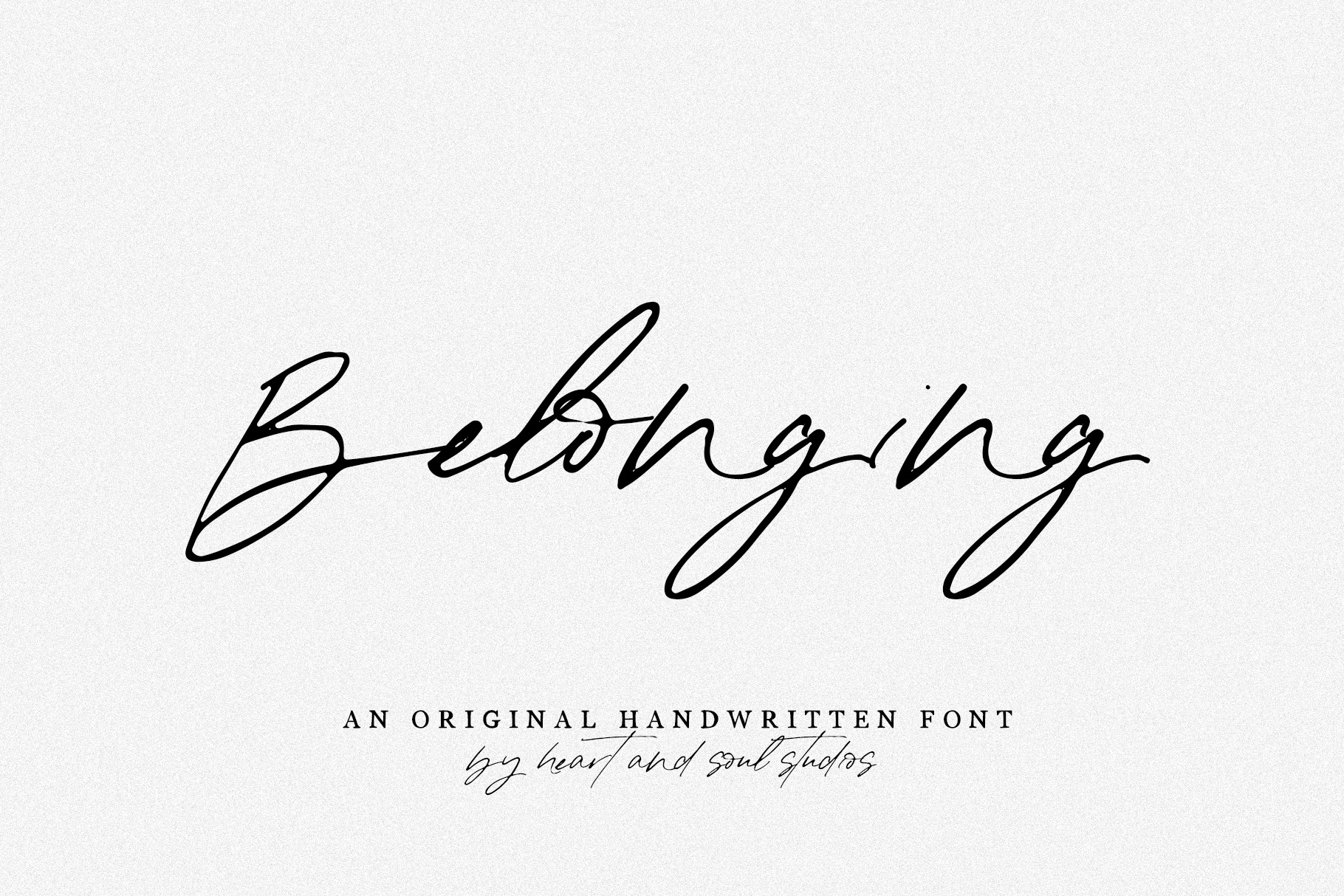
belonging | a handwritten font
Inspired by the reality of The Only Hope in life and death – to belong to Jesus Christ – 'Belonging' is an original handwritten font, styled after my own handwriting.
For all those beloved by The Lord and for all those He calls, that you might finally belong. For His glory forever.
Originally designed as a lowercase-only font, the product contains the following:
- belonging regular (this is lowercase only, no punctuation or numbers)
- belonging revisited (this is the regular font, including caps)
- belonging svg (this is the regular font as an svg; the font is not a vector, but raster; it's rough, but works best at a small size)
- belonging alt (this has caps from the revisited version, updated to include alternate lowercase letters)
- belonging part 2 (this includes the uppercase letters from revisited and the alternative lowercase letters from alt)
- belonging restored (this is the revisited version, including numbers and punctuation... PLEASE NOTE, this version is the ONLY one with numbers and punctuation)